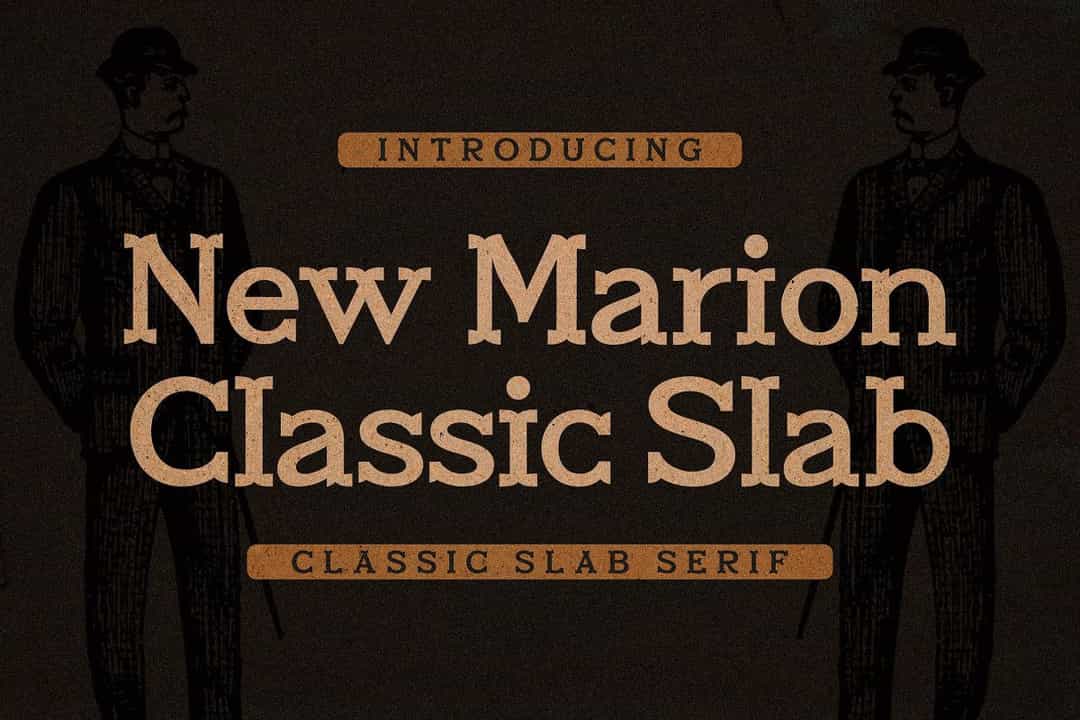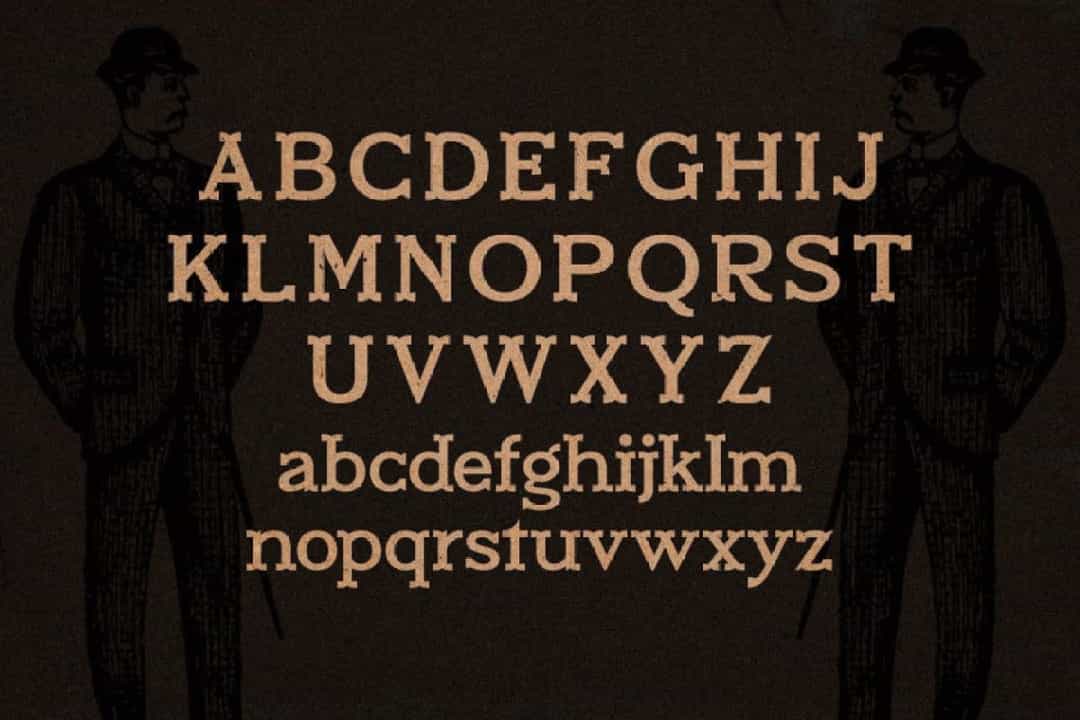
New Marion is modern and classic slab serif font is perfect for sophisticated logos, book or film style films, fashion label clothing lines, magazines letters, quotes and many other applications. It features its distinct style with its distinct modern appearance. This typeface can also make great use in fashion label clothing lines as well as magazines letters.